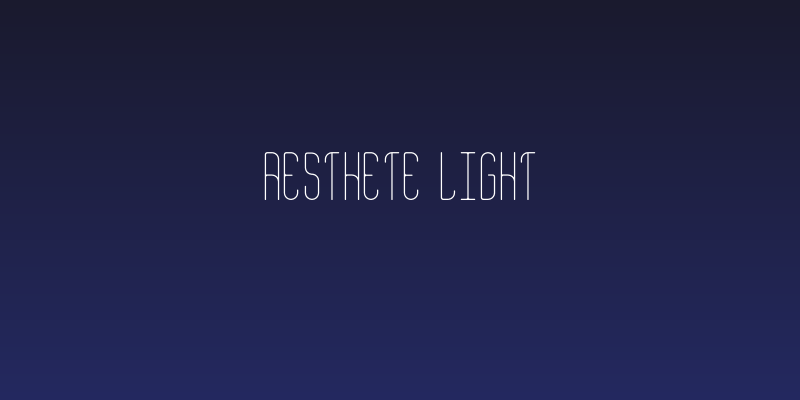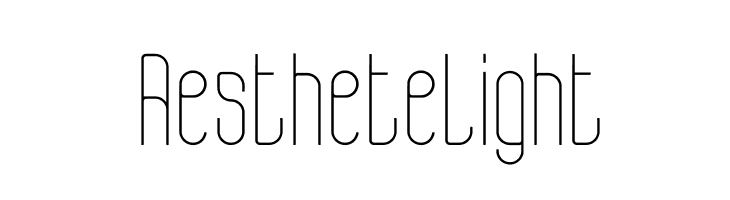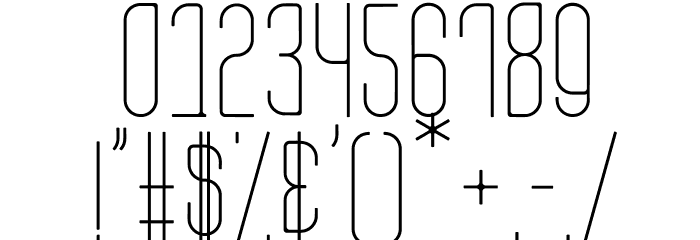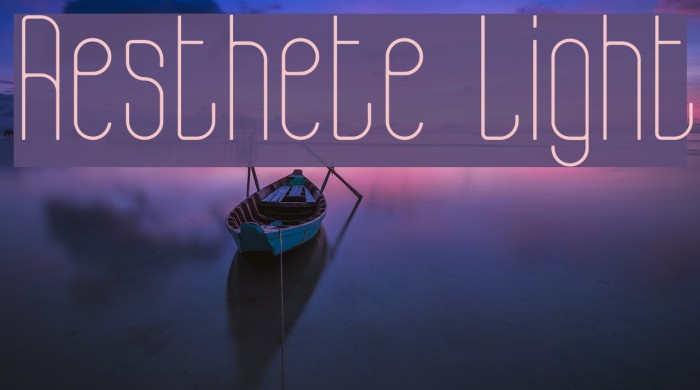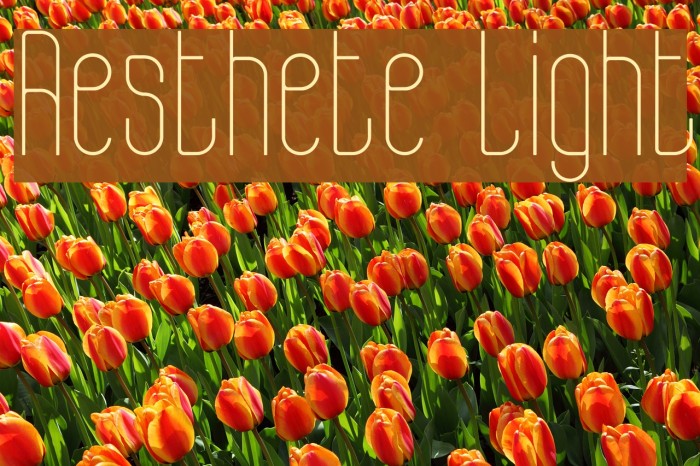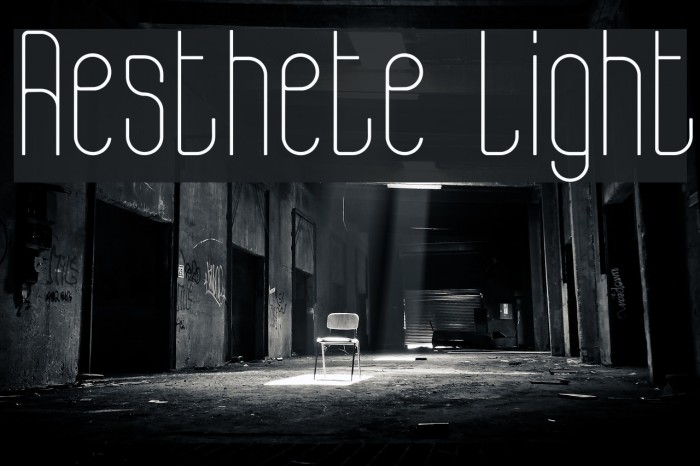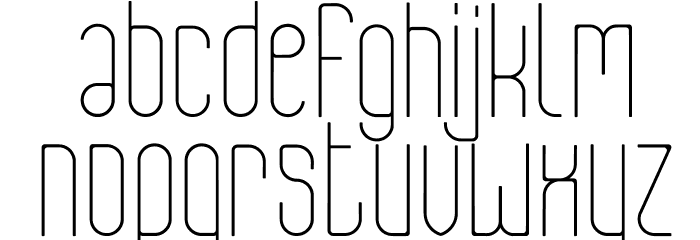
Aesthete Light Font
Aesthete Light Description
This font features a sleek, elongated design with a modern aesthetic. The characters are tall and narrow, with consistent stroke widths that give it a clean and minimalist appearance. The uppercase letters are particularly elongated, while the lowercase letters maintain a similar style but with slightly more curvature. The numerals and special characters follow the same design principles, ensuring uniformity across the entire character set. The overall look is sophisticated and stylish, making it suitable for contemporary design projects.
Eran Waldeck
| Proposed Projects | Ideal for fashion magazines, luxury branding, modern websites, and minimalist posters. |